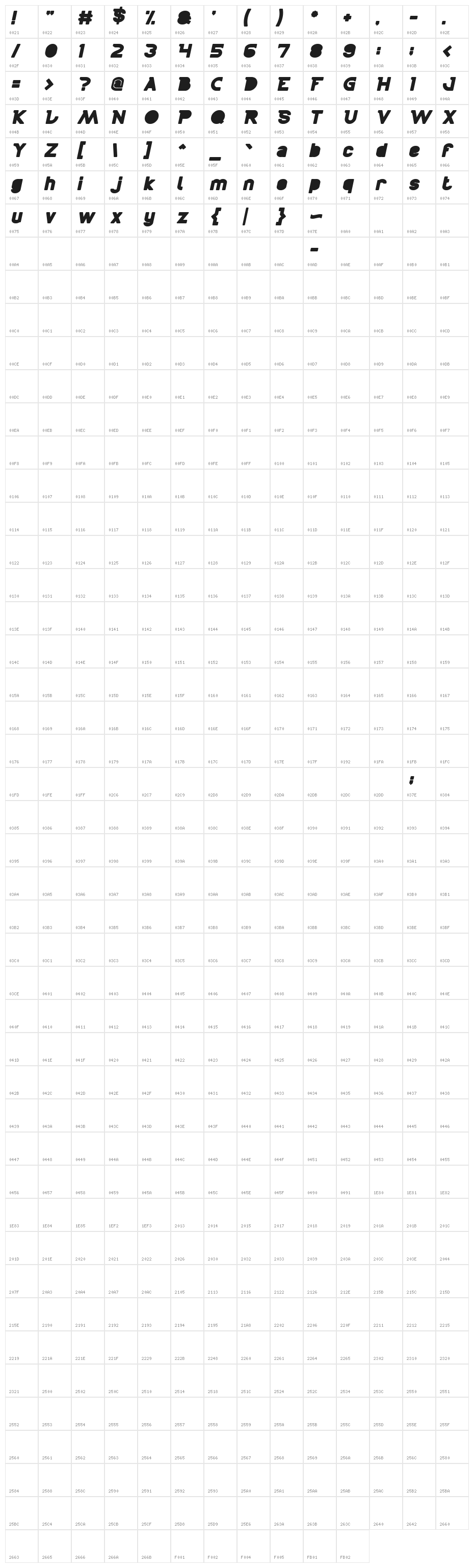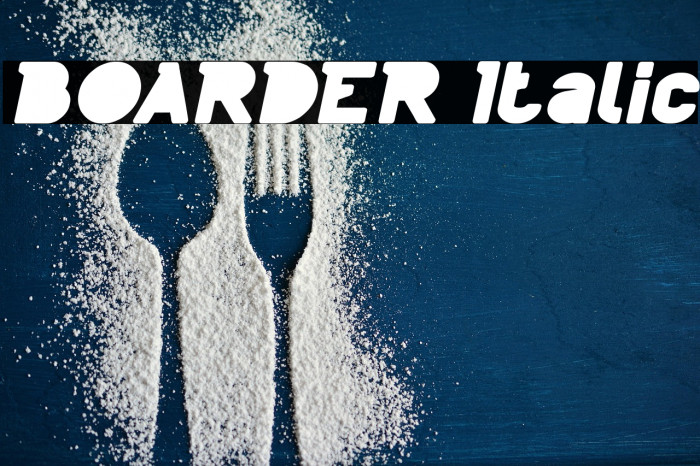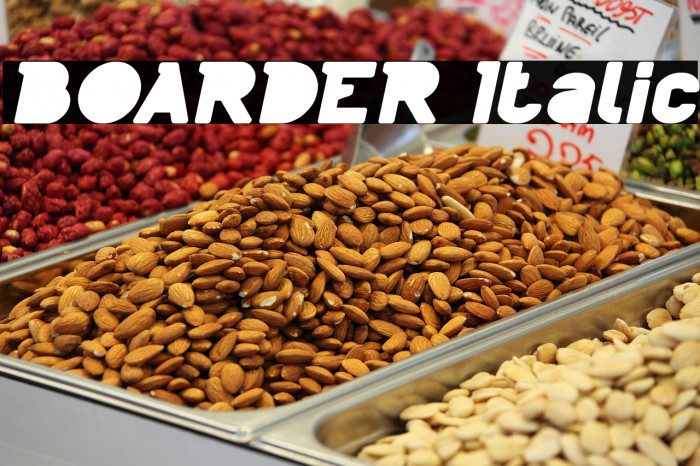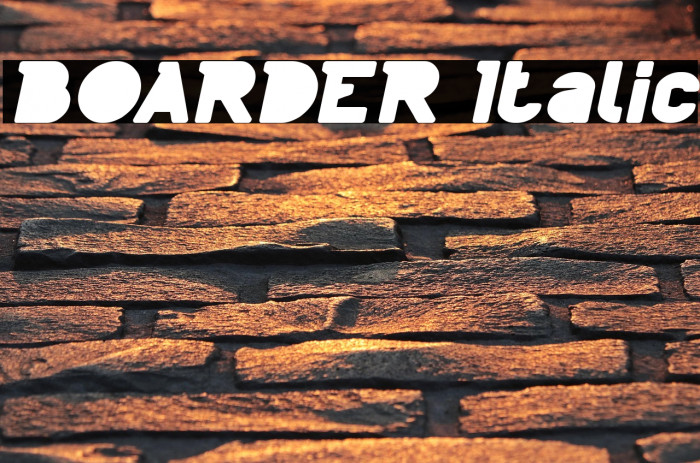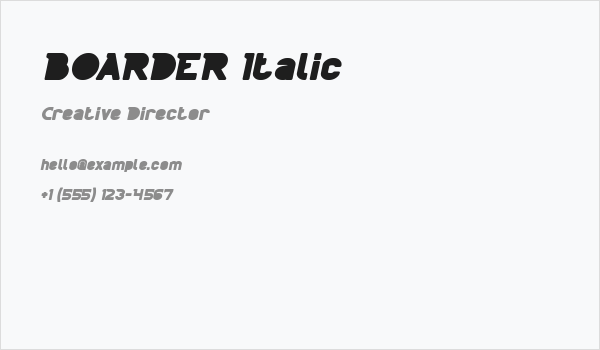
BOARDER Italic Font
BOARDER Italic Description
This font features a bold and dynamic style with a strong italic slant, giving it a sense of motion and energy. The characters are thick and rounded, with a playful yet assertive appearance. The uppercase letters are robust and commanding, while the lowercase letters maintain a consistent flow. The numerals are equally bold, ensuring readability and impact. Special characters are designed to match the overall boldness and style, making them suitable for various design needs. The font's unique style makes it stand out, ideal for projects that require a strong visual presence.